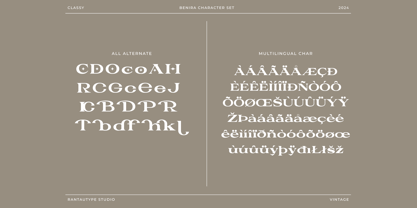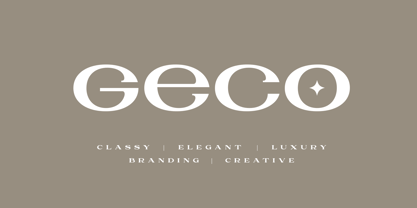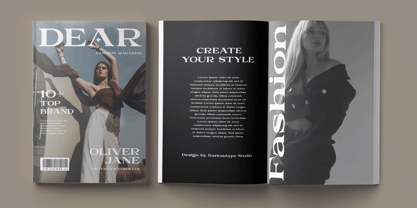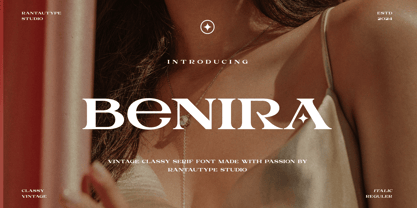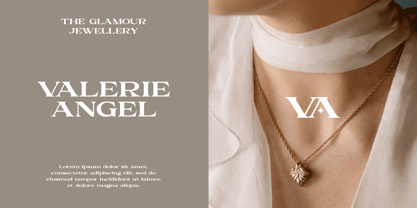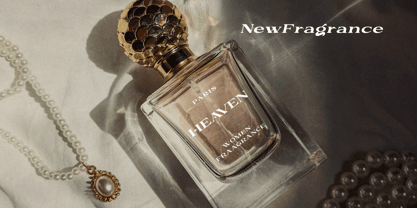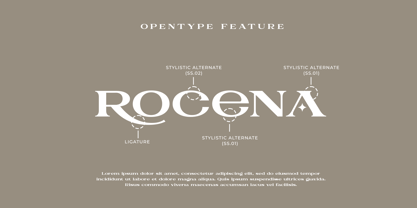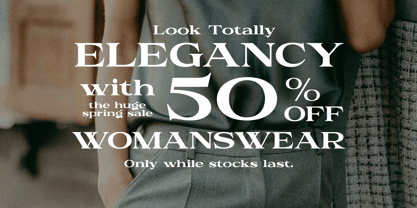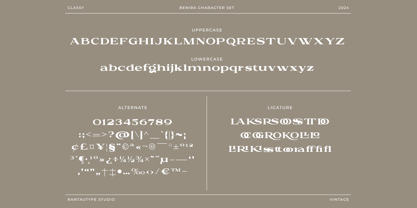
Benira
by RantauType
The Benira Font Family was designed by Yudi Pratama Chandra and published by RantauType. Benira contains 2 styles and family package options. More about this family
Benira is vintage classy font with wide aesthetic sharp essence of the elegant fashion. Benira is a perfectly choice for any creative endeavor, chic, lifestyle design such as logos, advertisements, stationery, branding project, display and magazine, invitation, corporate brand, product design, label, business project and many other project with elegant touch.
• Ligature and alternate